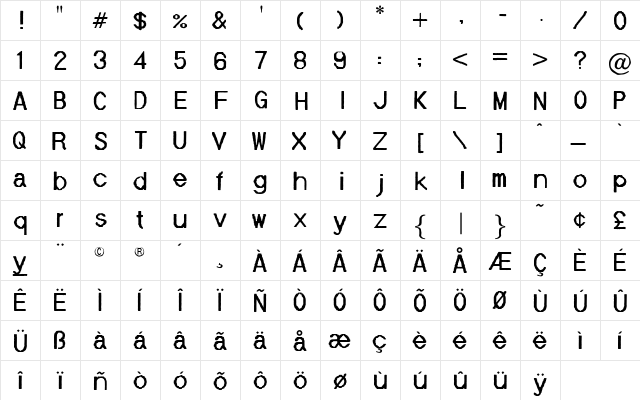
Mainframe-NO Neuf Un Regular
Design Context for Mainframe-NO Neuf Un Typeface
Mainframe-NO Neuf Un takes a measured approach to typography — its balanced proportions and neutral character make it a reliable workhorse for both digital and print work.